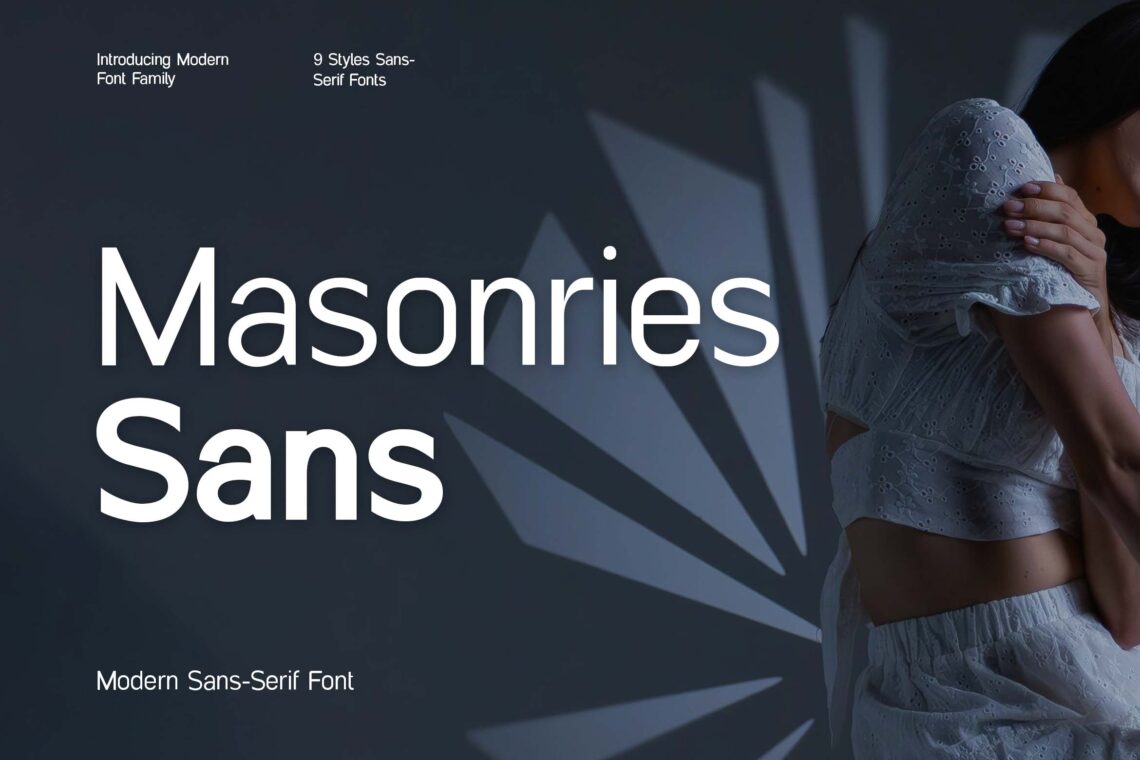
Typography plays a crucial role in modern design, and in 2025, sans serif fonts continue to dominate the creative landscape. Known for their clean lines, simplicity, and readability, sans serif fonts are widely used in branding, web design, advertising, and user interfaces.
As design trends evolve, so do the styles and variations of these fonts. The latest sans serif font 2025 selections reflect a balance between minimalism and personality, offering designers fresh options to elevate their visual projects.
10 Best Sans Serif Font 2025
In this article, we present the 10 best sans serif font 2025 choices that stand out for their versatility, elegance, and modern appeal. Whether you’re working on a corporate identity, a digital product, or a creative campaign, these fonts are designed to make a strong and lasting impression.
1. Mirage Stellar Elegant Sans Serif Font
Mirage Stellar Elegant Sans Serif Font
The Mirage Stellar Elegant Sans Serif Font is a modern typeface that embodies sophistication and clarity, making it an ideal choice for a variety of design projects. With its clean lines and balanced proportions, this font exudes elegance while ensuring readability across different mediums. Perfect for branding, marketing materials, and digital content, the Mirage Stellar font adds a touch of refinement to any text.
Its versatile nature allows it to be used in both headings and body text, making it suitable for everything from company profiles to websites. Elevate your design aesthetic with the Mirage Stellar Elegant Sans Serif Font, and create a lasting impression that resonates with your audience through its contemporary and stylish appeal.
2. Modular Black Sans Modern Sans Serif Family Font
The Modular Black Sans Modern Sans Serif Family Font is a striking typeface that combines boldness with contemporary design, making it an excellent choice for a wide range of creative projects. Featuring a geometric structure and clean lines, this font family offers a modern aesthetic that enhances readability and visual impact.
With multiple weights and styles available, the Modular Black Sans font family provides versatility for various applications, from branding and advertising to editorial design and digital content. Its strong presence makes it ideal for headlines and promotional materials, while its legibility ensures that body text remains clear and engaging. Elevate your design projects with the Modular Black Sans Modern Sans Serif Family Font, and make a bold statement that captures attention and communicates effectively.
3. Tradehouse Sans Serif Family Font
Tradehouse Sans Serif Family Font is a versatile and contemporary typeface designed to bring a modern touch to your design projects. With its clean lines and geometric shapes, this font family offers a perfect balance of style and functionality, making it suitable for a wide range of applications, from branding and marketing materials to websites and digital content.
The Tradehouse font family includes multiple weights and styles, allowing for flexibility in design and ensuring that your text stands out with clarity and elegance. Its legibility and contemporary aesthetic make it an ideal choice for both headlines and body text, providing a cohesive look across various platforms. Elevate your creative work with the Tradehouse Sans Serif Family Font, and create impactful designs that resonate with your audience while maintaining a polished and professional appearance.
4. Country Wood Rustic Elegant Font
The Country Wood Rustic Elegant Font is a charming typeface that beautifully captures the essence of rustic elegance, making it perfect for projects that require a warm and inviting touch. With its handcrafted appearance and organic curves, this font evokes a sense of nostalgia and authenticity, ideal for branding, invitations, and home decor designs.
The Country Wood font combines rustic elements with an elegant flair, allowing it to seamlessly fit into a variety of creative applications, from wedding stationery to artisanal product packaging. Its unique character and legibility ensure that your text stands out while conveying a sense of warmth and craftsmanship. Enhance your design projects with the Country Wood Rustic Elegant Font, and create a memorable impression that resonates with your audience through its distinctive and heartfelt style.
5. Minks Urban Sans Serif Family Font
The Minks Urban Sans Serif Family Font is a sleek and modern typeface designed to bring a contemporary edge to your design projects. With its clean lines and minimalist aesthetic, this font family is perfect for a variety of applications, including branding, advertising, and digital content. The Minks font family offers multiple weights and styles, providing versatility that allows you to create striking headlines and easily readable body text.
Its urban-inspired design captures the essence of modernity, making it an ideal choice for businesses and creatives looking to convey a fresh and dynamic image. Elevate your visual communication with the Minks Urban Sans Serif Family Font, and make a bold statement that resonates with your audience while maintaining a polished and professional look.